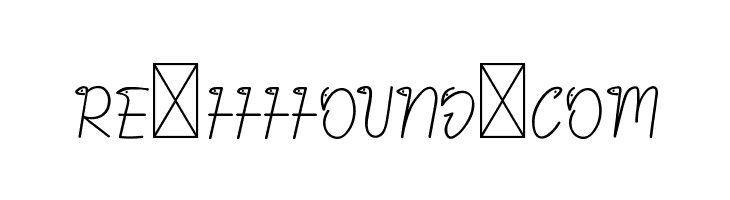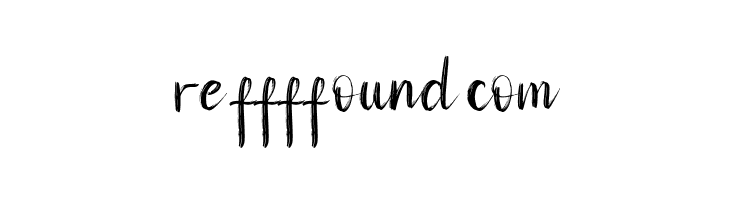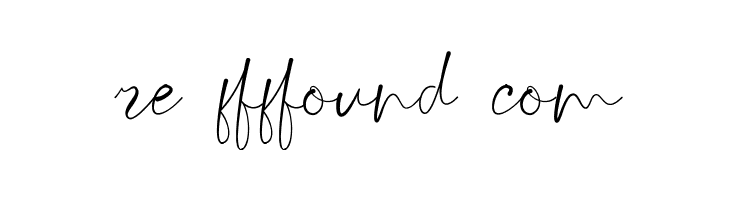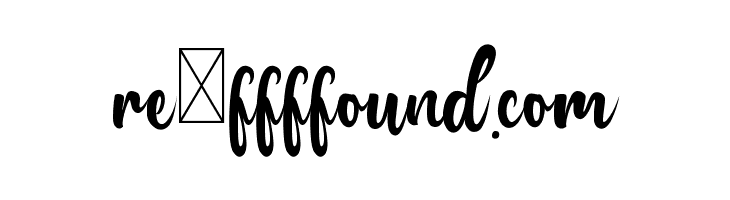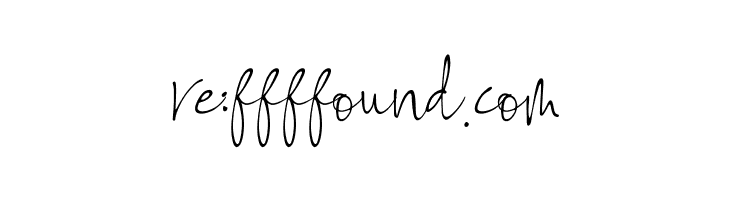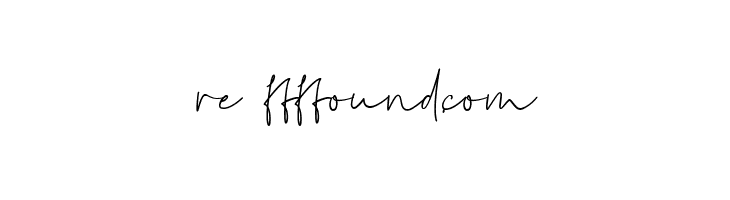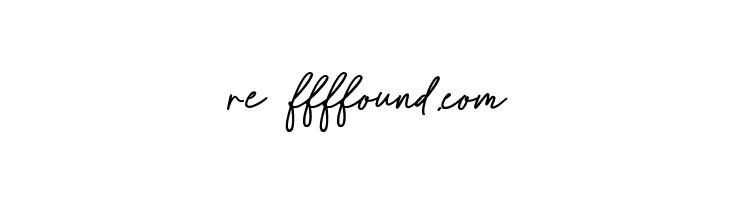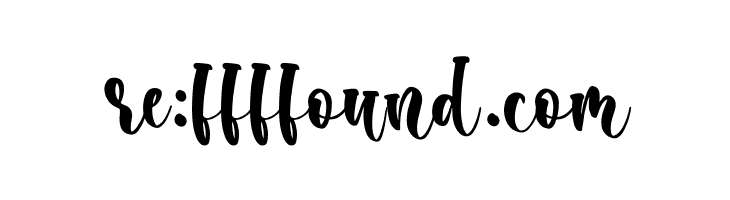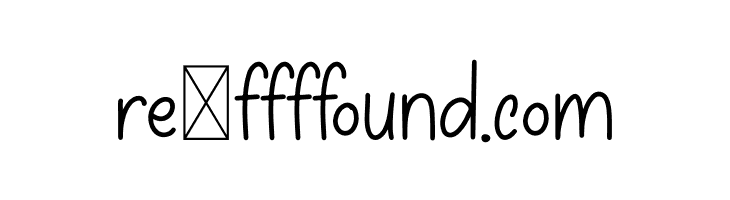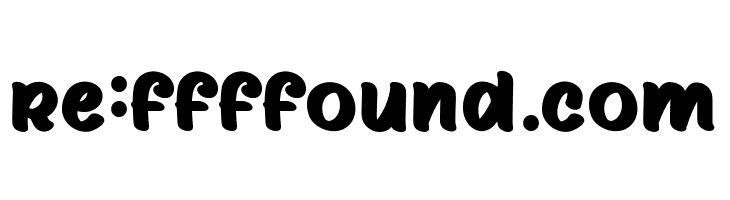
Butterfly FREE Font
A whimsical and playful script font with a bold, hand-drawn style.
Butterfly Winter Font
A flowing, cursive font with elegant and playful characteristics.
Butterfly World Font
A playful, rounded font with smooth curves and a friendly appearance.
ButterflyFreeRegular Font
A playful and whimsical script font with fluid, expressive letterforms.
Butterlate Font
A playful, casual handwritten font with irregular strokes and an organic flow.
Butterly Font
A dynamic, cursive font with a flowing, handwritten style.
Butterly script Font
An elegant script font with fluid, cursive strokes and sophisticated style.
Buttermillon Font
A dynamic, expressive handwritten font with fluid, slightly slanted letterforms.
Butterna Font
A playful and elegant script font with a modern, handwritten style.
Butters Mine Font
A bold, expressive handwritten font with dynamic strokes and playful curves.
Buttershine-Script Font
An elegant script font with flowing, cursive letterforms and artistic flair.
Buttershy Font
A playful, handwritten font with smooth, flowing lines and a whimsical flair.
Buttersoy Free Regular Font
A lively and expressive handwritten font with fluid, dynamic strokes.
BuzanthePersonalUseOnly-Regular Font
An ornate and decorative font with Gothic influences, featuring elaborate letterforms.
Buzz Buzz Regular Font
BvasEstadasPersonalUseOnly-Regu Font
An ornate and decorative font with intricate curves and flourishes.
Byastrales Regular Font
A playful, hand-drawn font with a friendly and informal style.
Byebye Honey Font
A playful script font with decorative swashes and a handwritten feel.
Byemalkan Font
A modern-vintage blend with elegant curves and distinct letterforms.
Byonlhy Regular Font